On digitisation: a practical and statistical analysis of digitised type.
Introduction
Students of the TypeMedia course, TypeMedia alumni and a couple of professional type designers were asked to interpret and digitize a scanned image of a printed letter: shown below, a 12 point Caslon, probably a Monotype version from an Enschedé specimen. They could use their favorite font editor, and interpret the outline as they normally would.
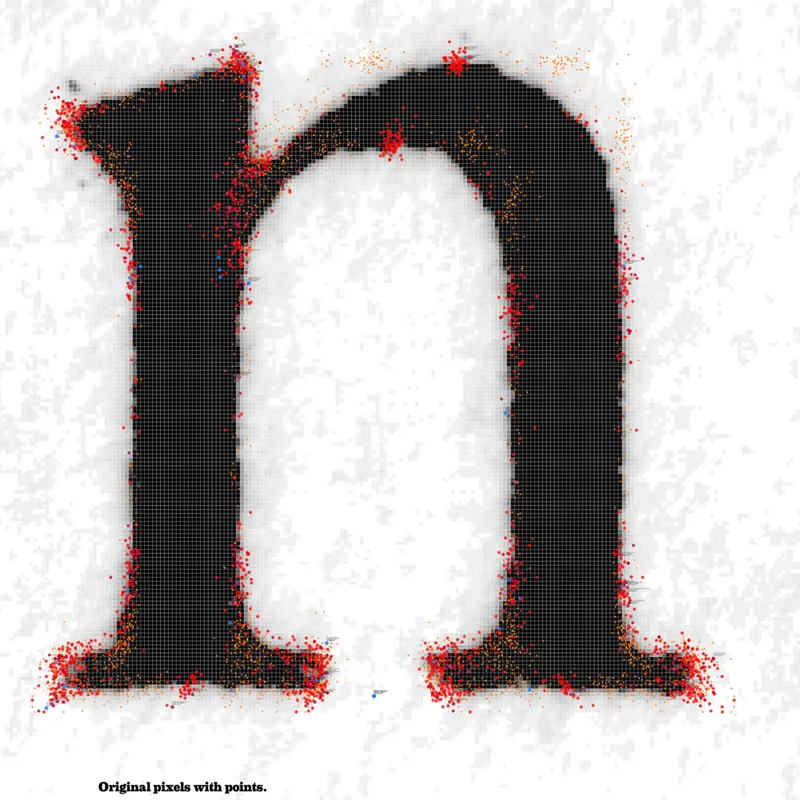
Normalised digitisation data superimposed on the original bitmap. The curve extremes are very similar in each result, but the curve-to-stem transition is has many interpretations. (click to zoom).
There are some induststry wide, well established rules for constructing letter forms in Bezier paths. These are best practice guidelines: not as strict as technical limitations. Even when following these rules there are almost no right or wrong solutions: each glyph shows how the designer interpreted the image. Similar to different musicians playing the same piece of music, none of them are more valid than others. The experiment resulted in unique glyphs. Stems are sometimes drawn straight, sometimes curved. Corners are sometimes sharp, or drawn with short straight sections, or completely curved. Scale is different for each contribution: each designer followed his/her own workflow and methods. Some used RoboFont. Some used FontLab.
Method
In order to show the data, I looked for a method of comparing the outlines without having to interpret, indicate landmarks, or measure things in the shape. It had to be a comparison independent of size, scale or point structure. Manual measuring would bias the results. Procrustes analysis can be used to remove scale and position from comparison. This is possible by calculating the surface area and the center of gravity of the shape. A glyph surface area can be measured by iterating over a grid of points (with a chosen density) and keeping a tally of points that are inside the shape. The total of points inside the shape is an indication of its surface. We can then calculate a scale factor that makes each glyph have the same surface area. An approximation of the center of gravity is found by taking the average of all of the coordinates that tested inside the shape. Combining the scale and centering brings all contours together. There are still differences between the glyphs, but the variation between the contours are now evenly distributed in a narrow band around the shape. Compare the spread in group E in illustration 2.2 and group F in illustration 1.2.
All participants are familiar with basic point placement required for normal fonts. It is interesting to see that some parts of the shape are treated similarly by different designers. For instance the top of the curve (group A in illustration 2.4) becomes a very compact cluster as it can be located easily. But even with the current number of samples there are no identical shapes which share exact coordinates. On the other hand, there are details in which standard point placement has no preference. Personal preference and experience will dictate the path construction. For instance, points contributing to the connection between the curve and the stem are spread out over a large area (group C in illustration 2.4). Different glyphs can approximate each other in local details, but it doesn't follow that other points in other local details will then be similar as well. Group B in illustration 2.3 is also interesting: these are points on the transition from the stem into the curve. Much harder to pinpoint than the top of the curve (group A)
This experiment shows that Procrustes analysis can be a useful tool to compare glyph outlines for different applications. For instance it could be used to line up scanned (and auto traced) outlines, in the early stages of a revival project. The method could also be used to compare glyphs from different fonts when analyzing the provenance of glyph data. It is reasonable to assume that if the participants had more material to work with (perhaps in a follow up experiment), the number of ideas and interpretations would increase and the outlines would diverge further. This shows how unlikely it is when two fonts of allegedly different origin and designers contain glyphs that share not one but multiple points.
Twelve randomly chosen entries. None of the point structures match, surprisingly. Though perhaps with more entries it would eventually happen. None of the point coordinates matched either.
Discussion
In order to make participation easy, I chose to ask for a single letter: less work than digitizing two or more. A lowercase n was a good subject because it combines a couple of typographic landmarks in a compact shape. It has a bit of contrast between thick and thin. It as 3 serifs, two on the baseline and one on the x-height, two straight stems around a counter. Plus a curve / stem connection and a curve / straight connection. This means that the designer would have to solve a couple of different problems. A single shape also brings limitations. First there are artifacts from the print itself. Rough bits of paper and uneven spread of the ink will make this imprint slightly different from other imprints of the same letter, on the same page. Type designers working on a thorough revival of a printed typeface often collect multiple versions of each letter to get an idea of the shape without the artifacts. They also base their art direction on the full set of available shapes. In this experiment the type designer had no opportunity to really tune the outlines. A wider range of letters might have directed his or her opinion about the contrast, weight, or for instance how sharp corners should be constructed. They were forced to stay close to the given image. As such the data represents the process of interpreting of a bitmap into vectors and not so much the more complex process of creating a new typeface. Basic spacing really needs to be tested with several key shapes. While each glyph had provisional left and right margins set, in the evaluation of the results the spacing was ignored. Spacing would definitely be an interesting factor to include in a follow up experiment. While the visual results of Procrustes analysis are convincing, further statistical analysis of the data is needed. Based on some of the clusters of points, it should be possible to calculate the odds for two glyphs to share one single coordinate (either after Procrustes analysis, or even in raw data). After that it might be possible to calculate the odds for matching sequences of points or entire contours.
Animation: the normalisation transformation applied slowly.